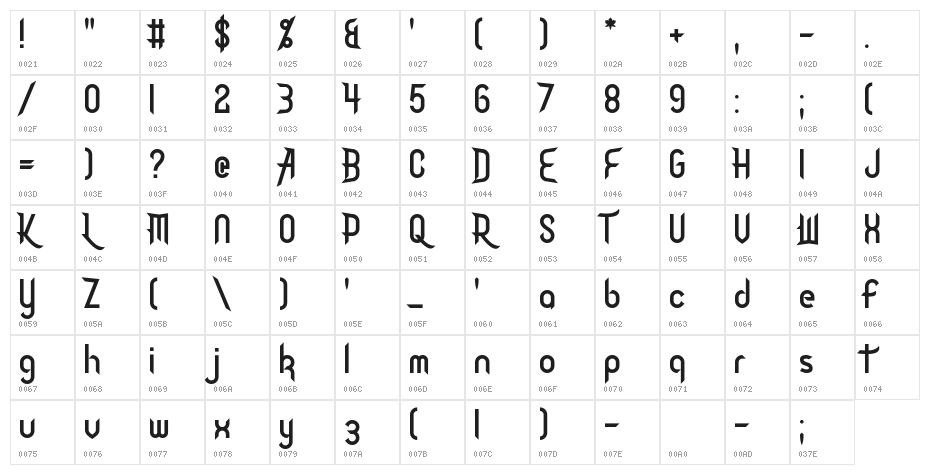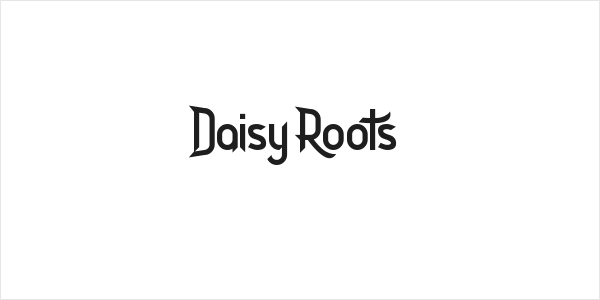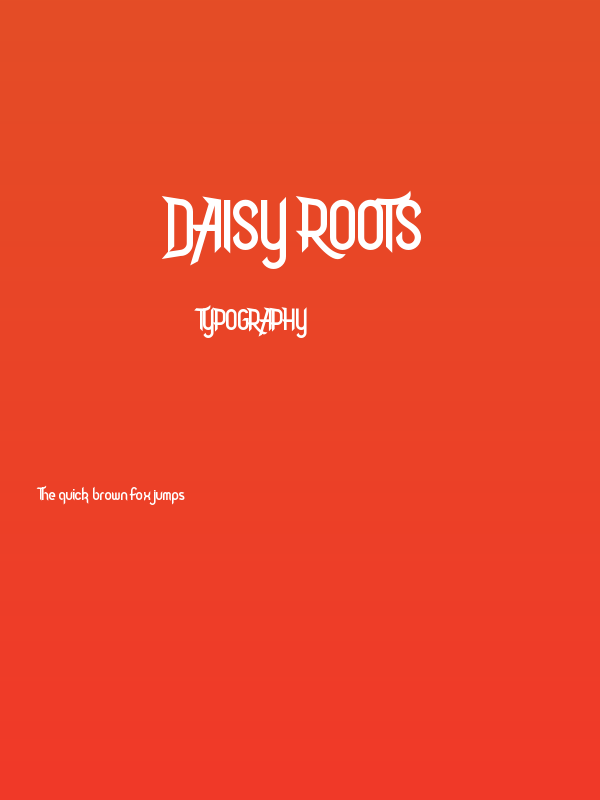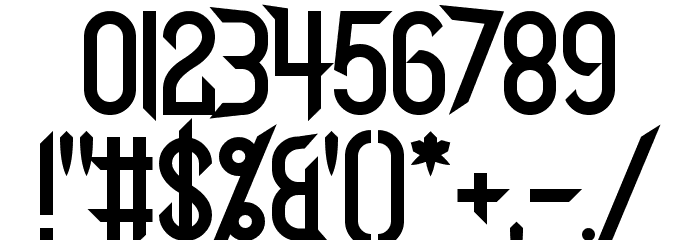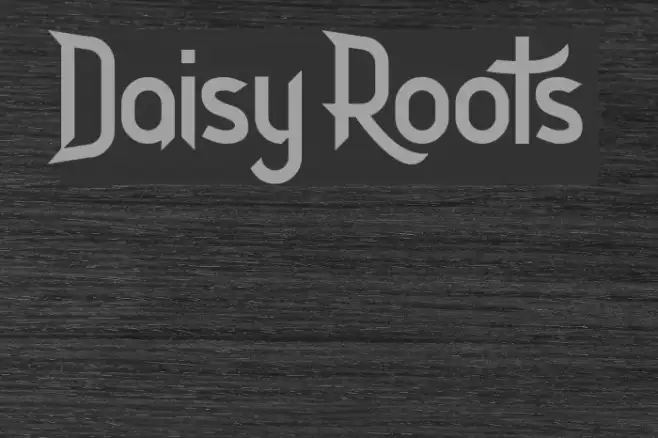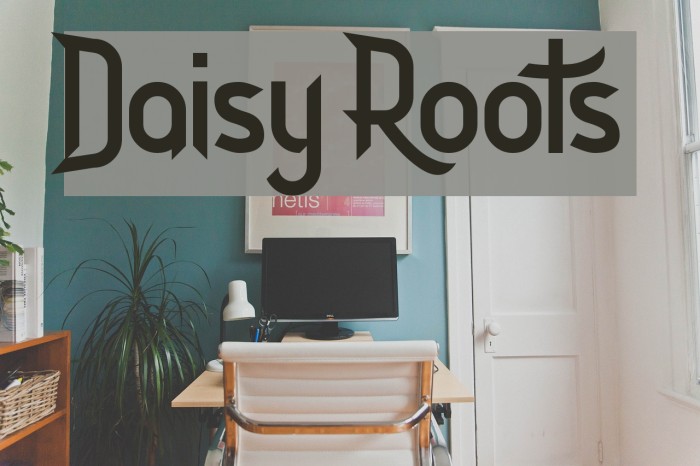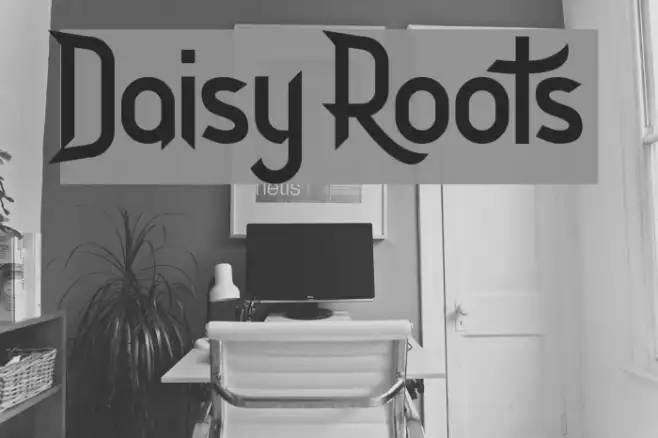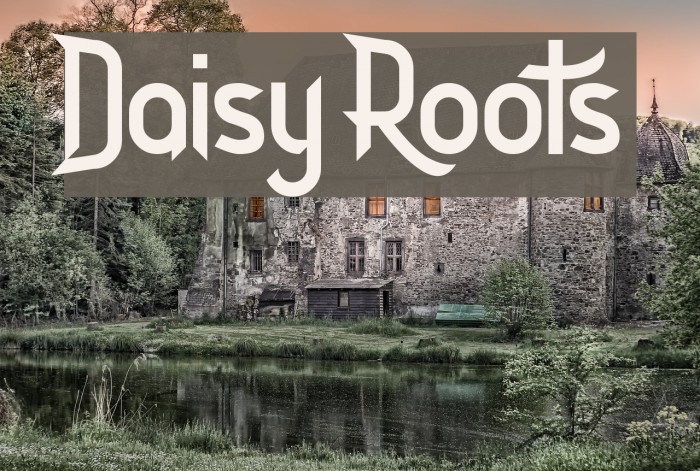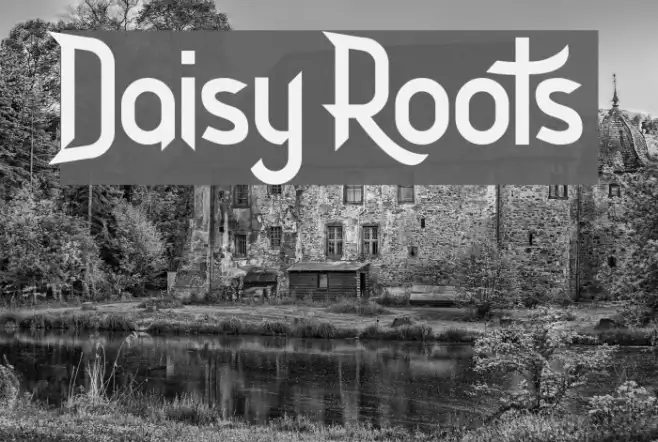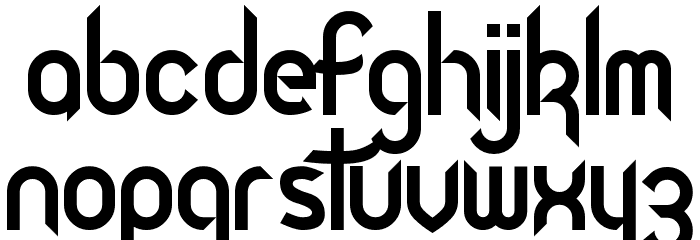
Daisy Roots Font
Daisy Roots Description
This font features a bold, geometric design with sharp angles and a modern aesthetic. The uppercase letters are particularly striking, with a unique interplay of straight lines and curves that create a sense of movement and energy. The lowercase letters maintain this dynamic style, offering a cohesive look across different text sizes. Numbers and special characters are equally bold and distinctive, making them stand out in any design. The font's overall appearance is both futuristic and retro, reminiscent of early digital typefaces but with a contemporary twist.
DAISY-ROOTS UPPERCASE
DAISY-ROOTS LOWERCASE
DAISY-ROOTS OTHER CHARS